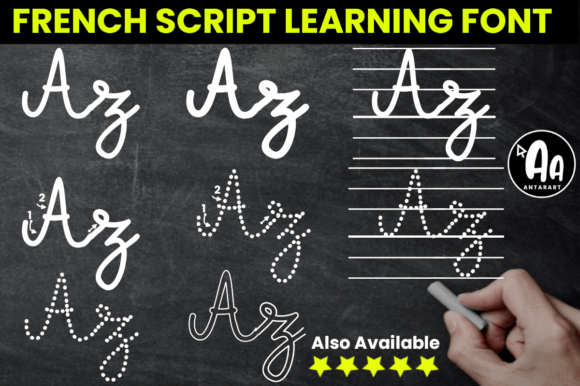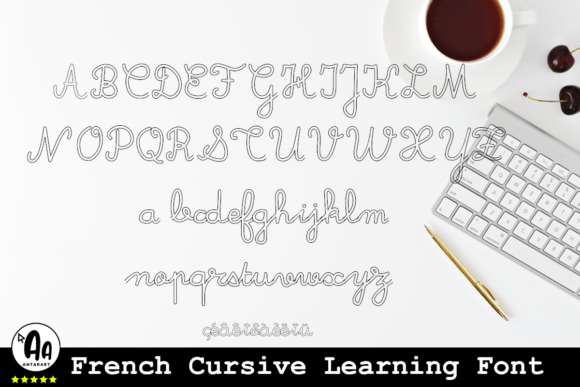
Introduction to French Cursive Outlined Font
French Cursive handwriting font This handwritten font helps you create hundreds of worksheets using any software.
It is a great learning resource for those who want to learn or teach French Cursive handwriting enjoyably and interactively .
Key Features of French Cursive Outlined Font
Why Choose French Cursive Outlined Font?
French Cursive Outlined Font offers exceptional quality and versatility, making it a valuable addition to your design toolkit. Whether you’re creating for personal projects or commercial use, French Cursive Outlined Font delivers professional results.